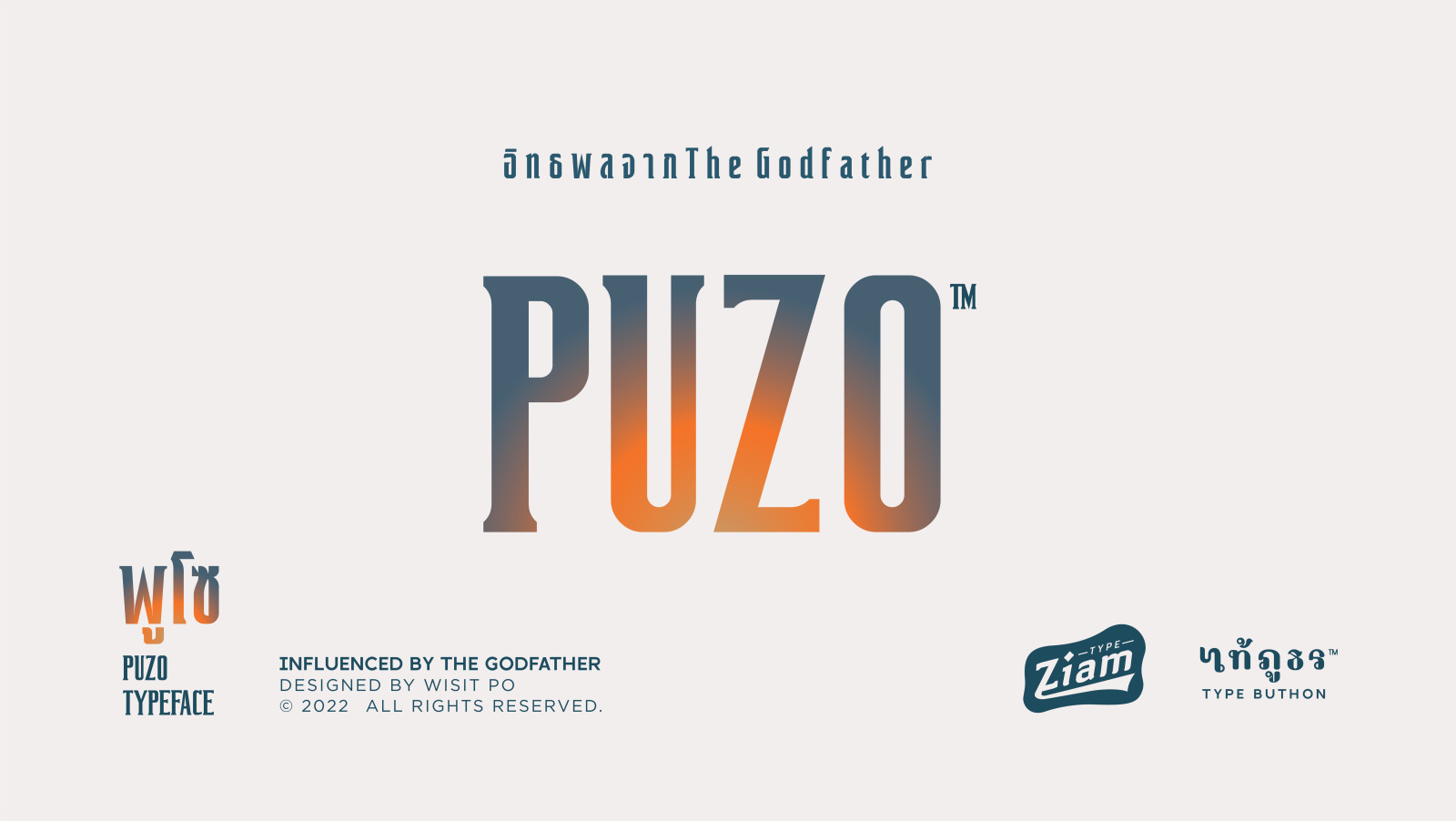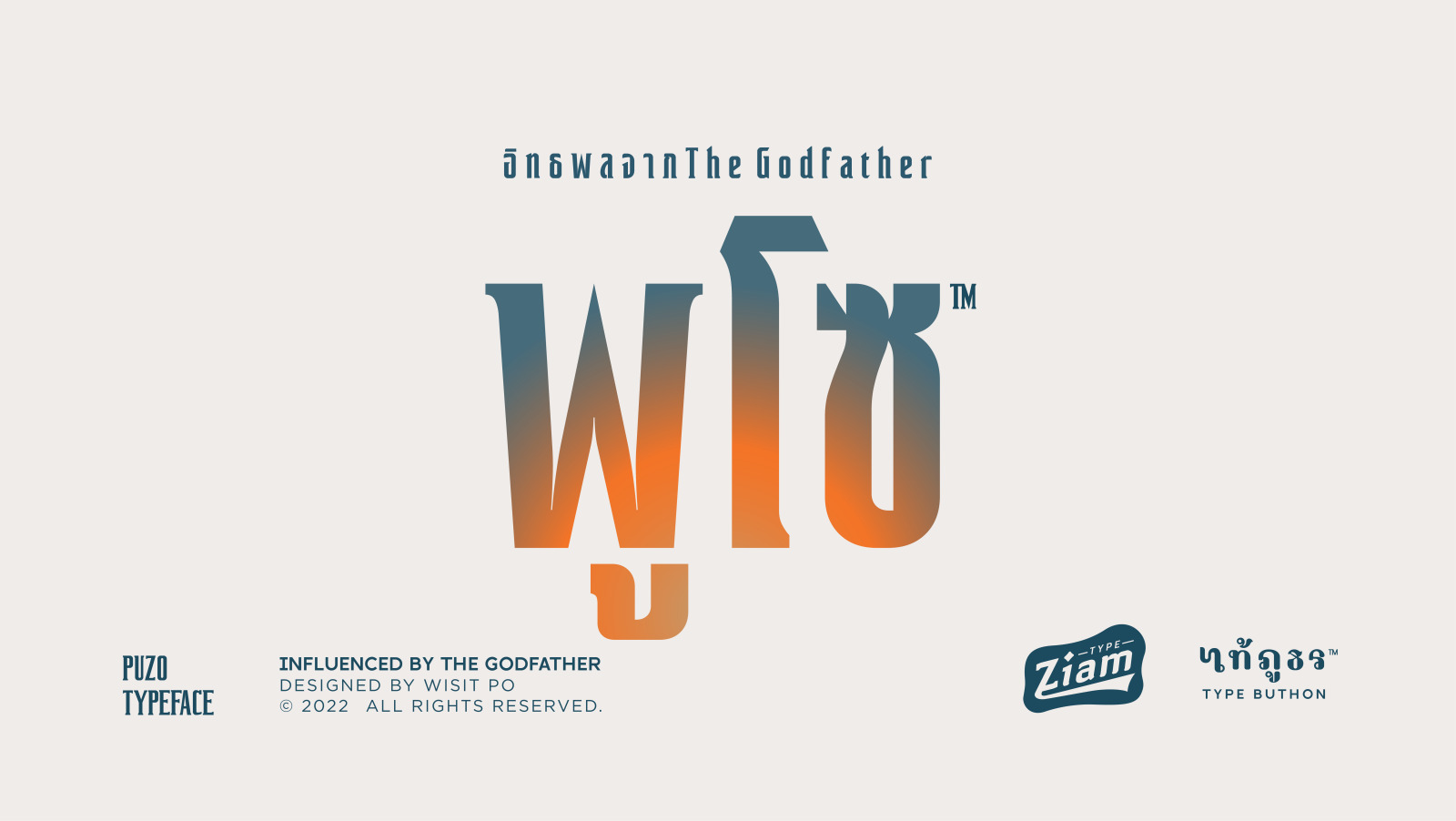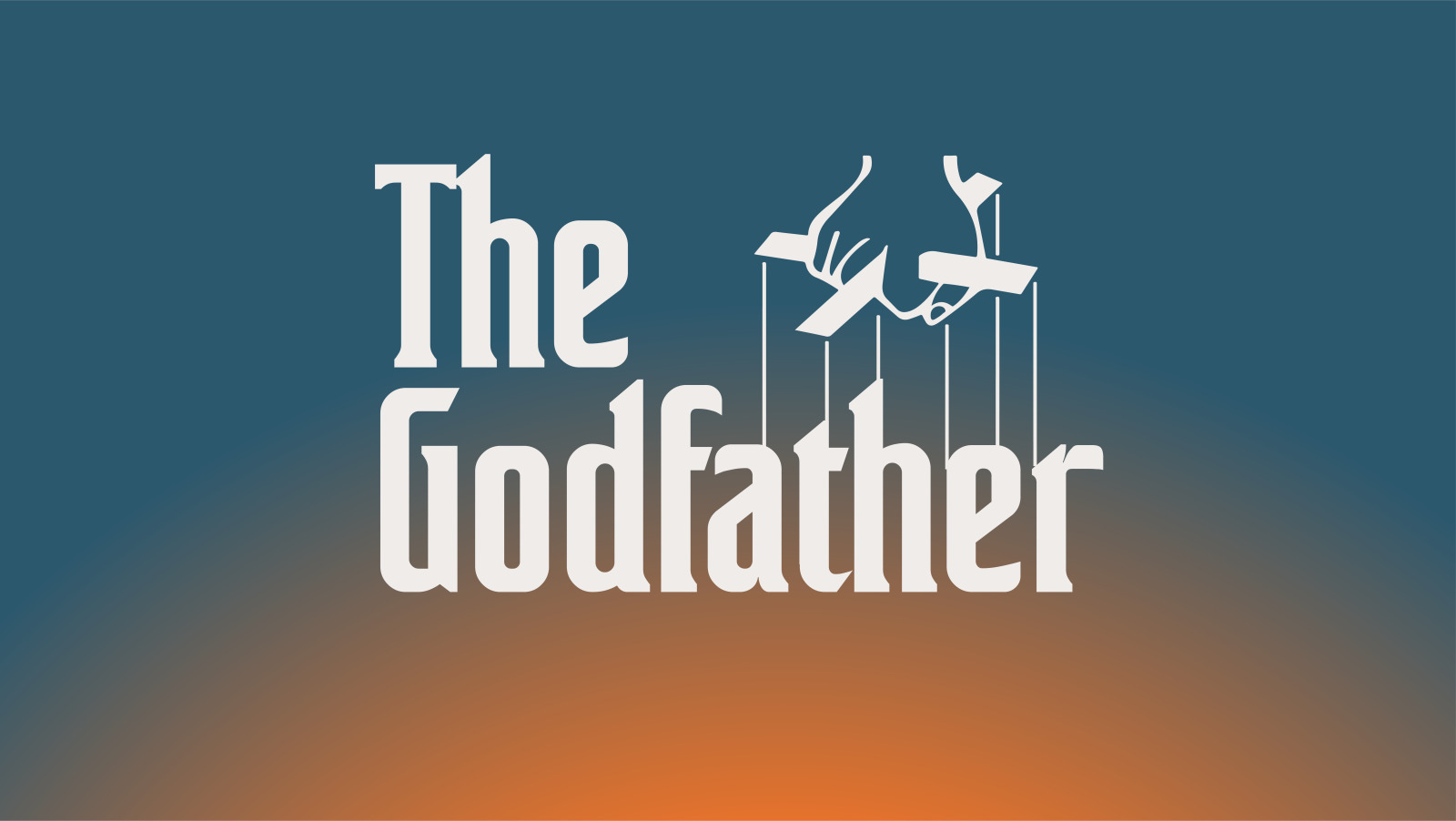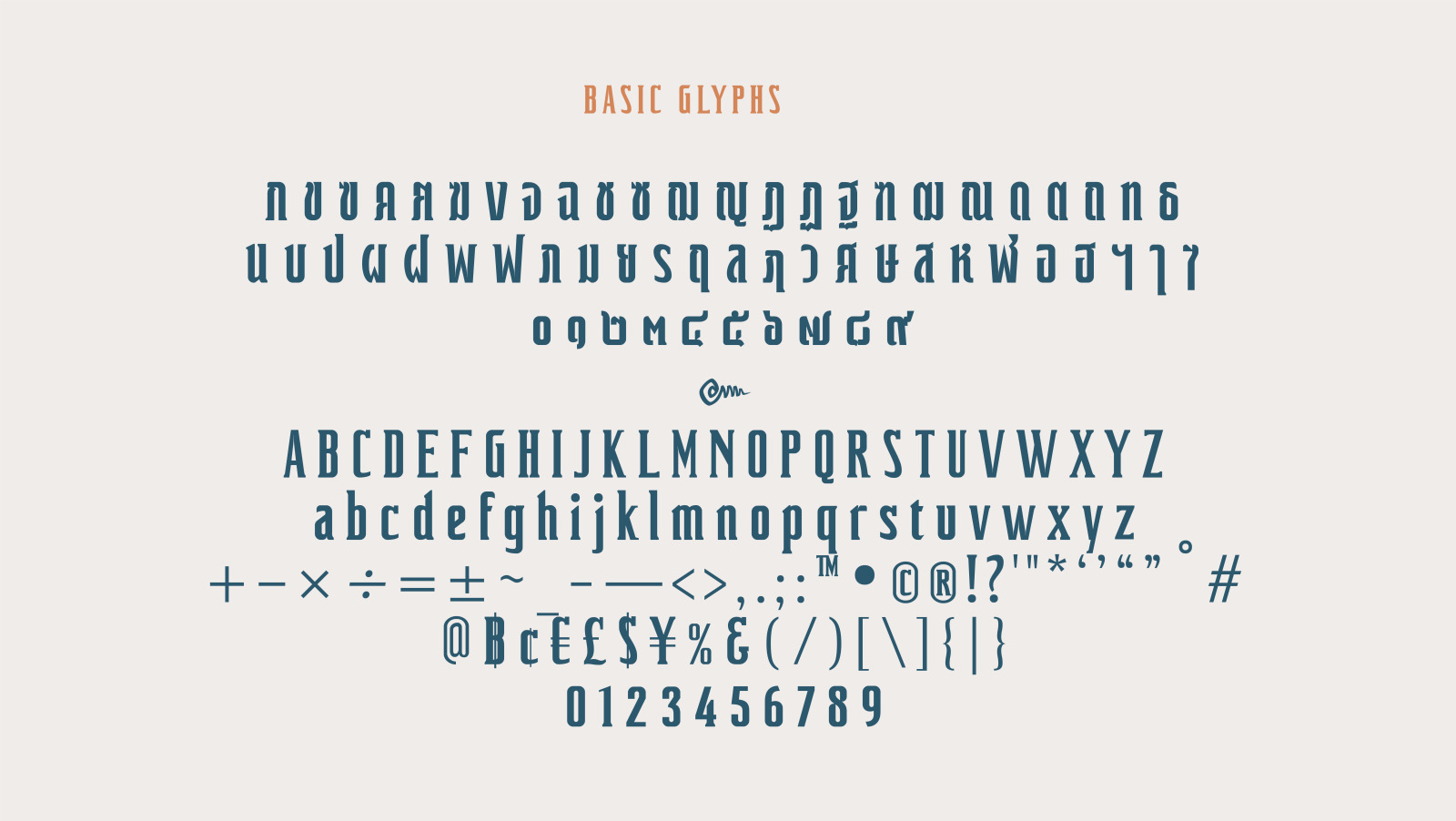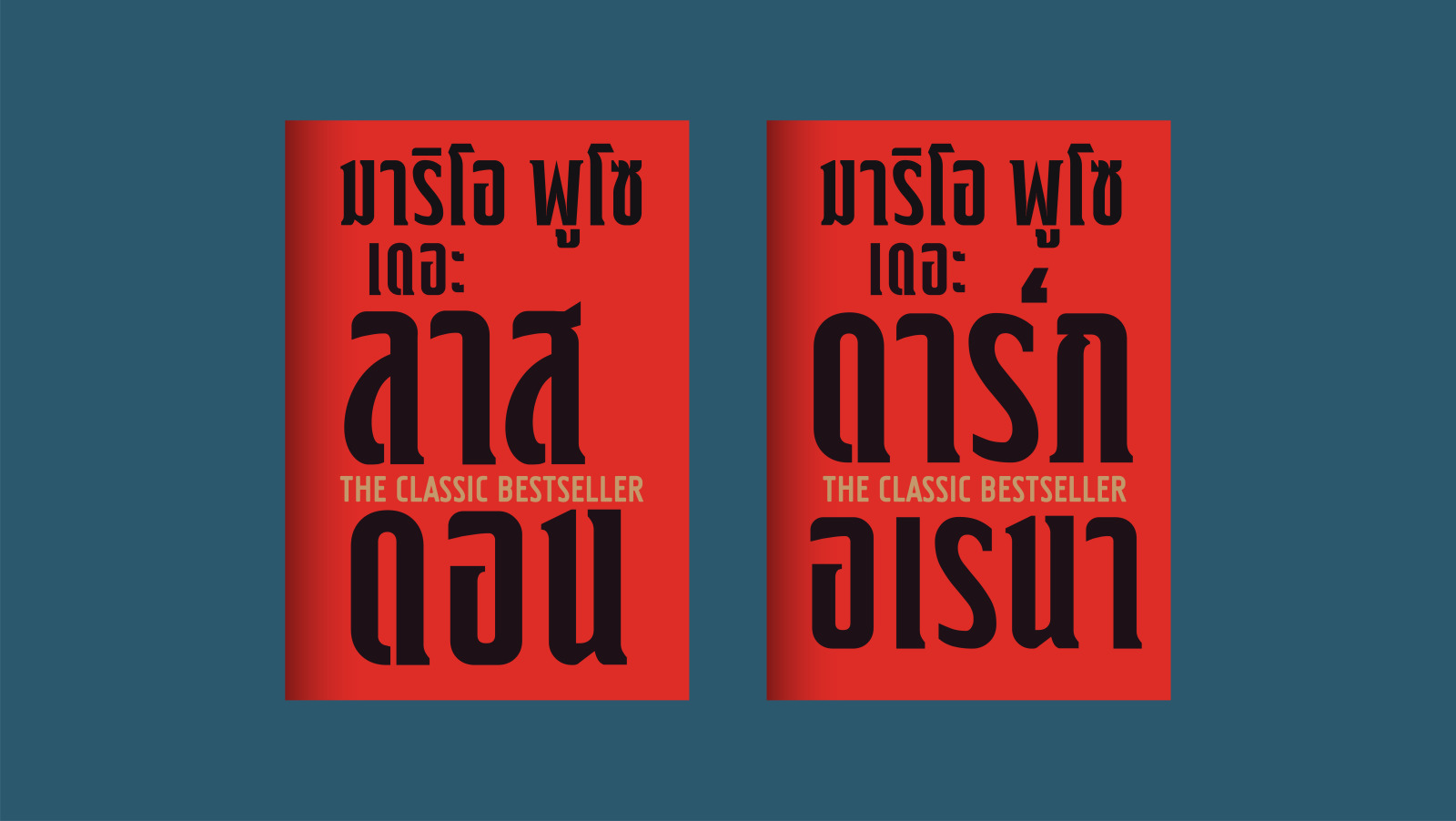
PUZO FONT
This font was inspired by Movie title: The Godfather It's an old-fashioned, retro styled font, suitable for posters, headlines. This set of fonts includes regular and 3D. The font designed to support Thai language And languages that use Basic Latin, Western European, Euro, Pan African, and Latin. The font file formats are both OpenType and TrueType. Desktop, WebFont, ePub, and Mobile App supported.